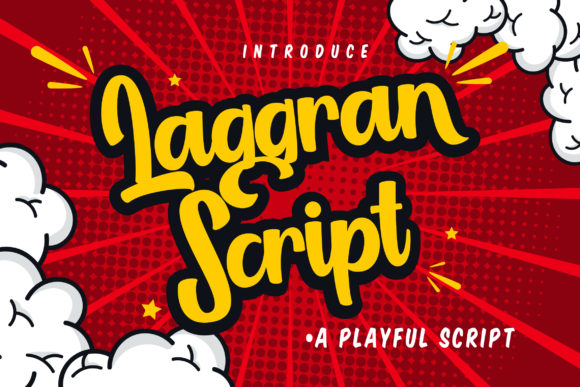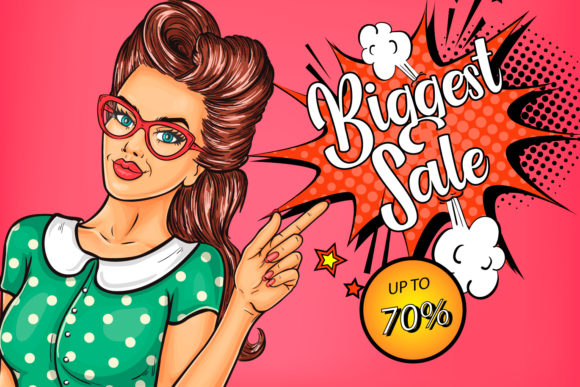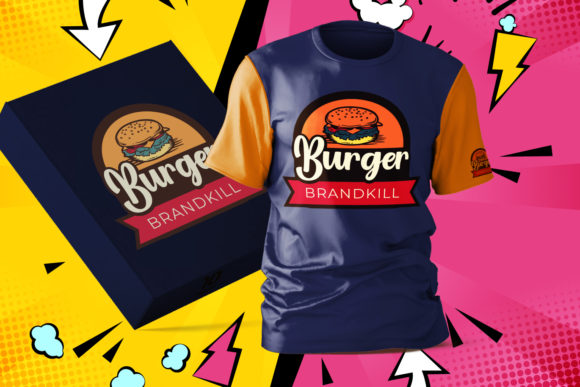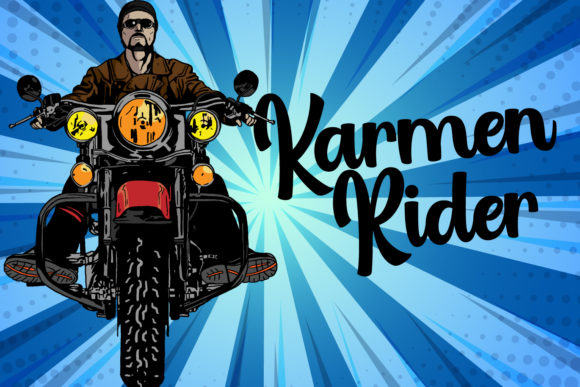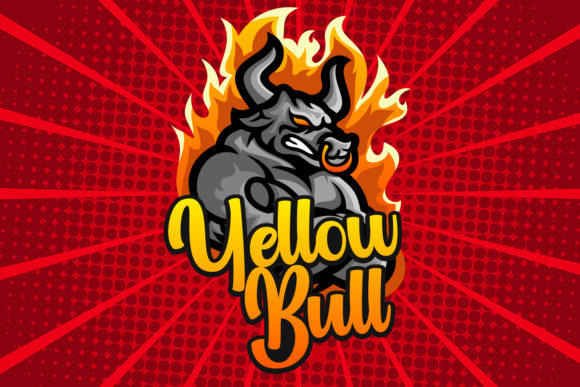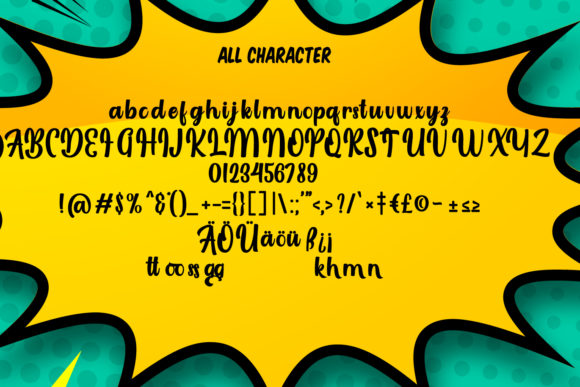
HomeScript FontsLaggran Font Script Fonts Laggran Font FacebookXPinterestWhatsApp Laggran Font Poster 2 Laggran Font Poster 3 Laggran Font Poster 4 Laggran Font Poster 5 Laggran Font Poster 6 About Laggran Font Laggran is a playful script font with casual style. Fall in love with its charming look & feel! DOWNLOAD ON CREATIVE FABRICAThis font is sold and delivered by Creative Fabrica. Font Canyon may earn a commission if you buy through this link. People also explored Broughton Font Smolly Line Font Aromusk Font Happy Cupcake Font Rosemary Samantha The Thag Font Slimcy Rabbit Font Fiona Lattina Script Domillion Font 371 0 TagsLaggran Font Previous articleWonderkids FontNext articleDelich Font LEAVE A REPLY Cancel reply Comment: Please enter your comment! Name:* Please enter your name here Email:* You have entered an incorrect email address! Please enter your email address here Website: Save my name, email, and website in this browser for the next time I comment. Personal Use Free Pompom Personal Use Free Read more about this font DangeRNighT Font Personal Use Free Read more about this font Zojihun Personal Use Free Read more about this font Little Pixel Personal Use Free Read more about this font BLOG Best Fonts for YouTube Videos: Make Your Thumbnails Stand Out Best Fonts for YouTube Videos: Make Your Thumbnails Stand Out Choosing the right font can make a massive difference in how your YouTube videos perform.... How to Cut Any Font on Cricut: Convert a Font to SVG (Free) Fonts That Capture the Spirit of New York City How to Install and Use Fonts on Windows, macOS, and Web Projects